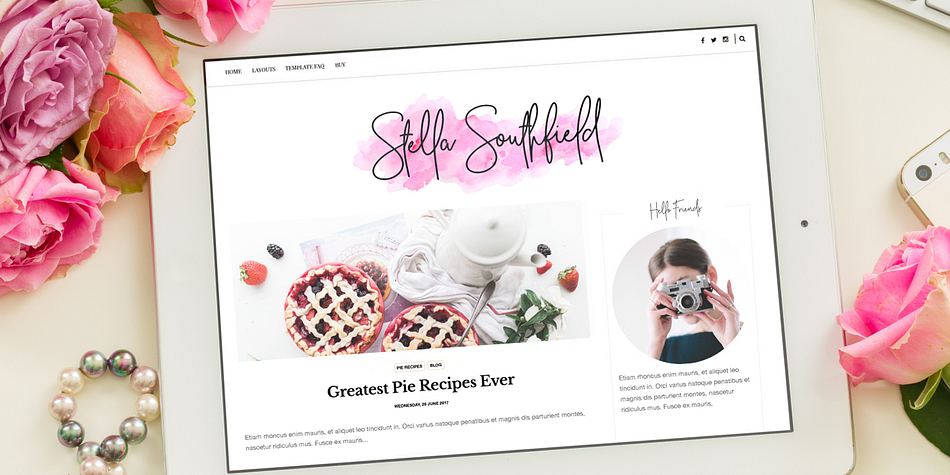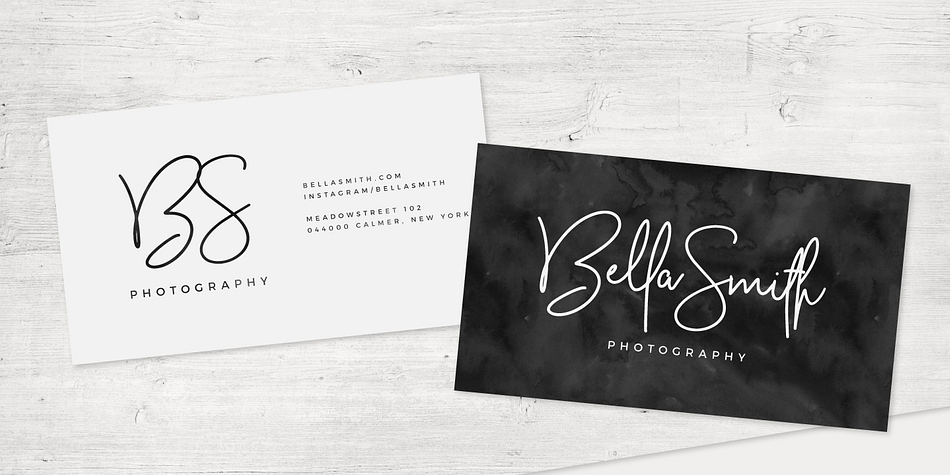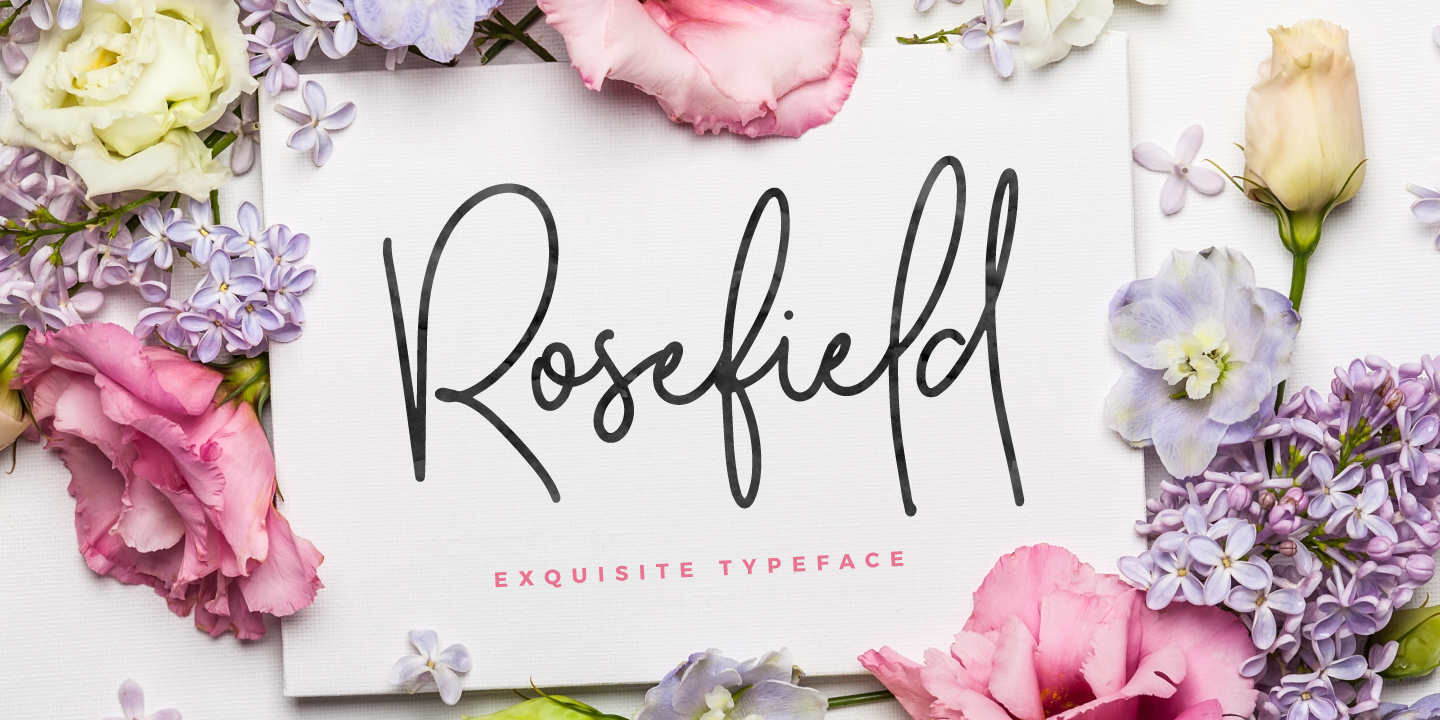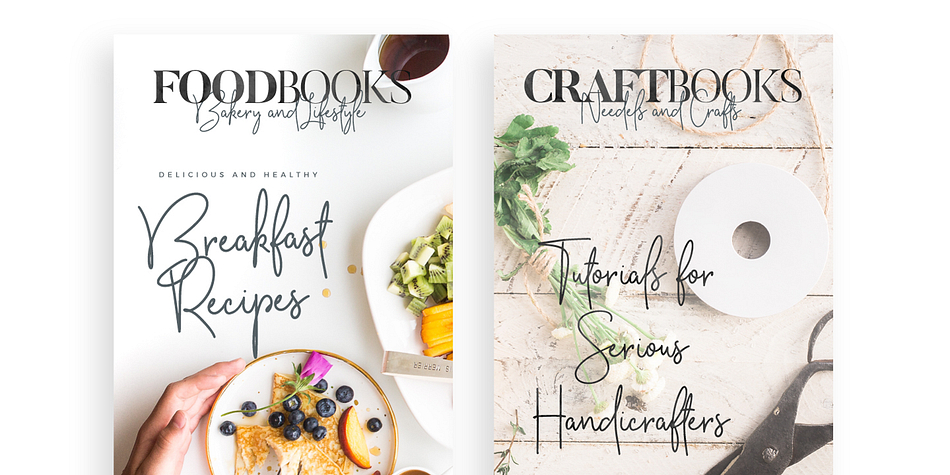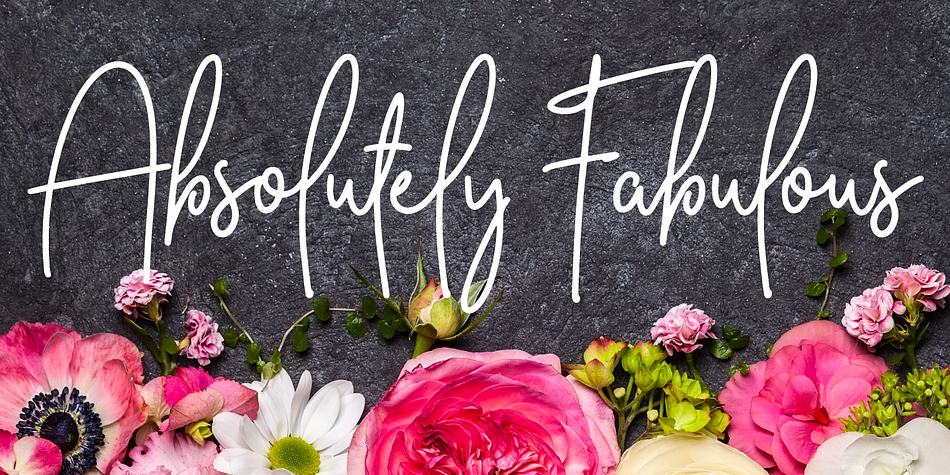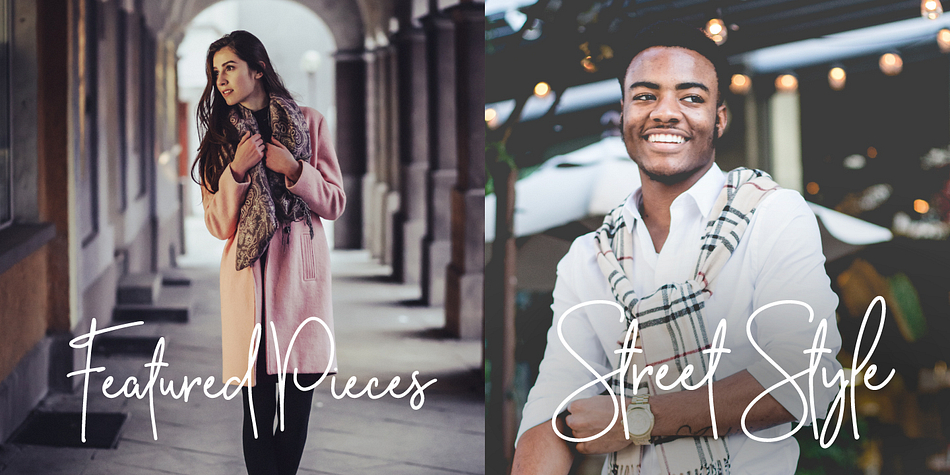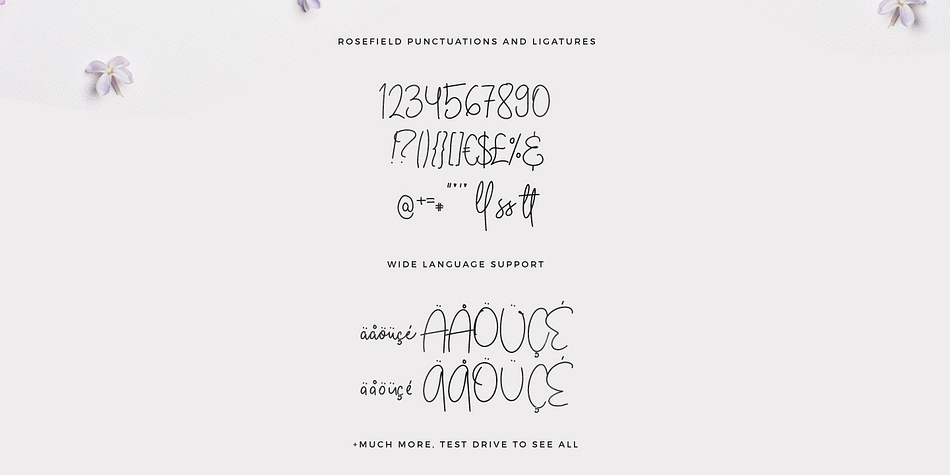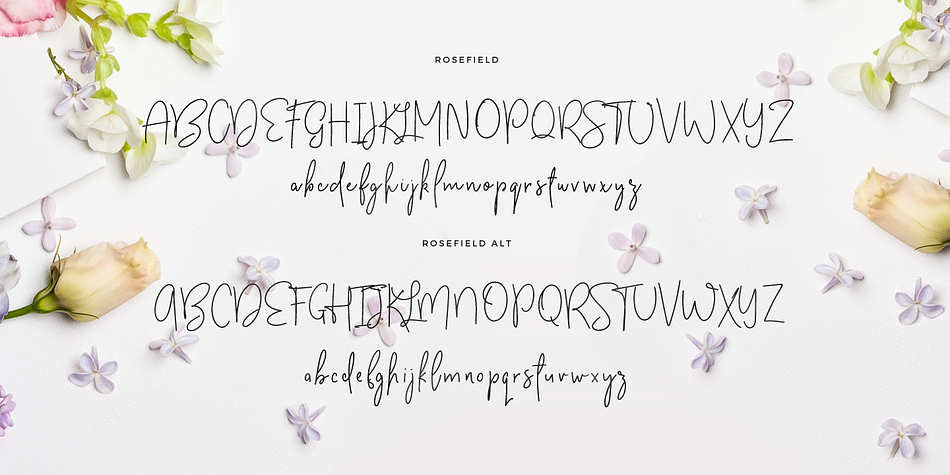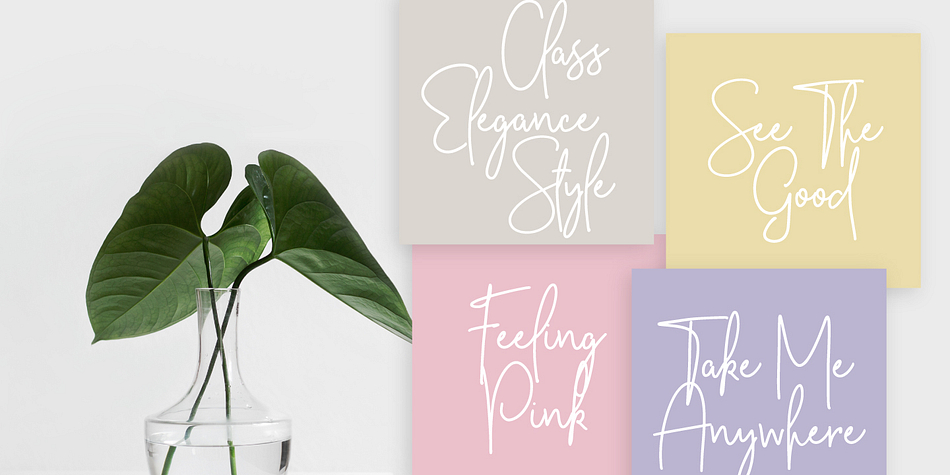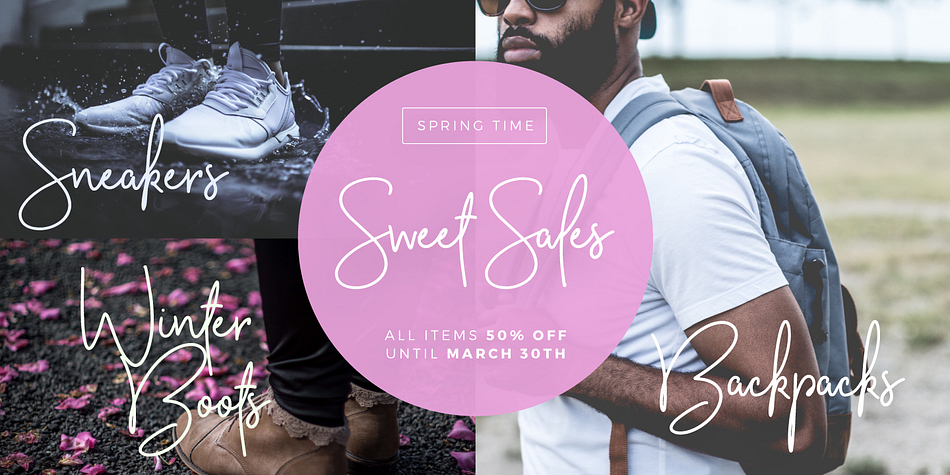
Rosefield is a script font family. This typeface has two styles and was published by Mats-Peter Forss.
Introducing the new lovely Rosefield Typeface. It’s a soft-edged font with full alternates (upper and lowercase). Designed to work perfectly in multiple designs like wedding invitations, website logos, Instagram posts and many many more.